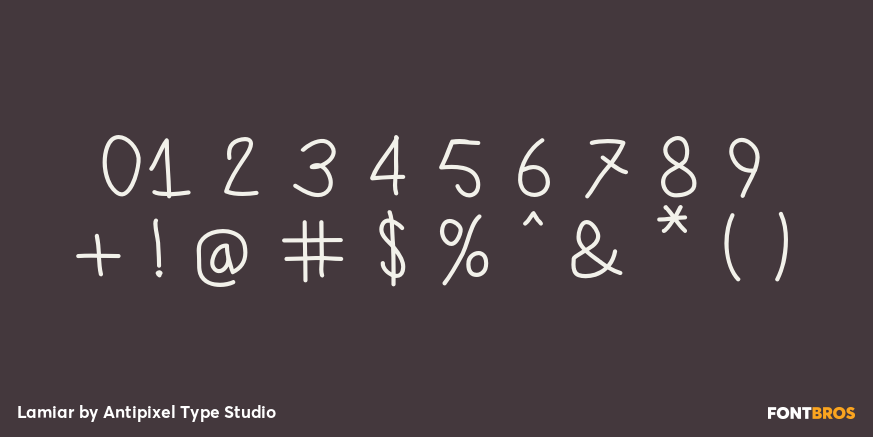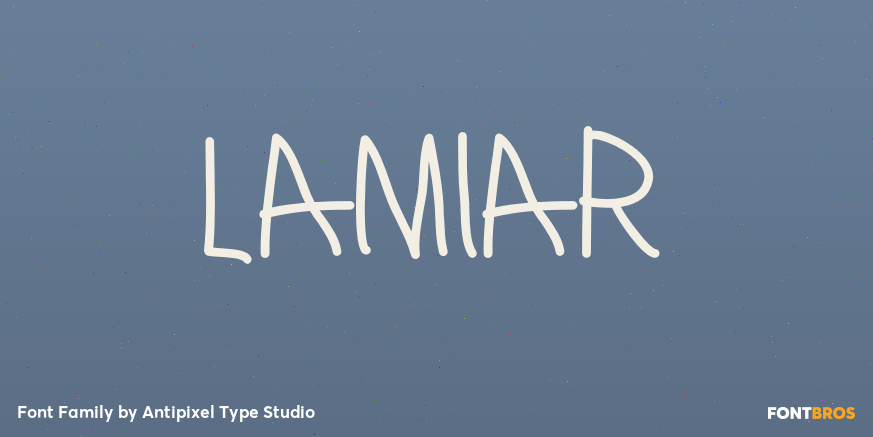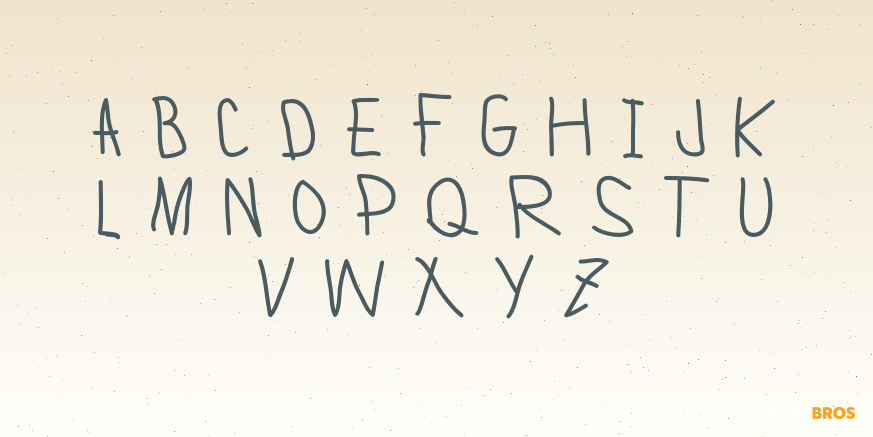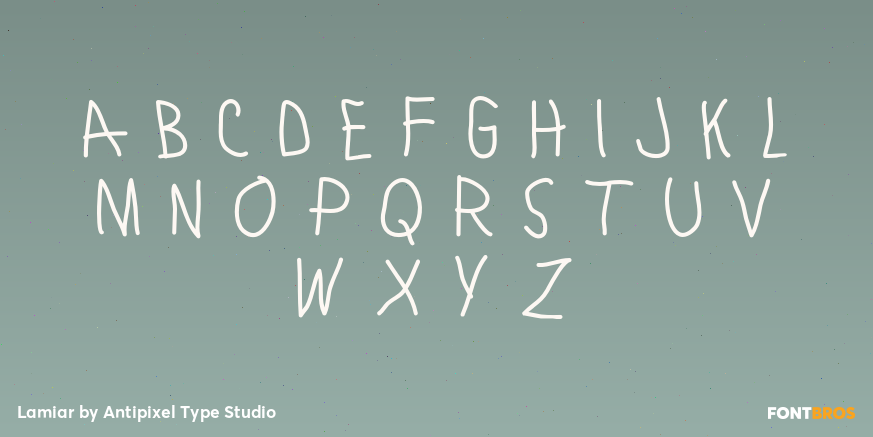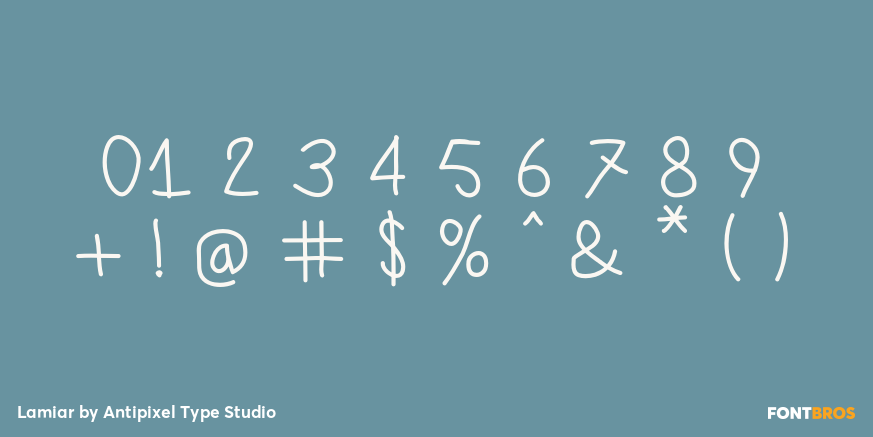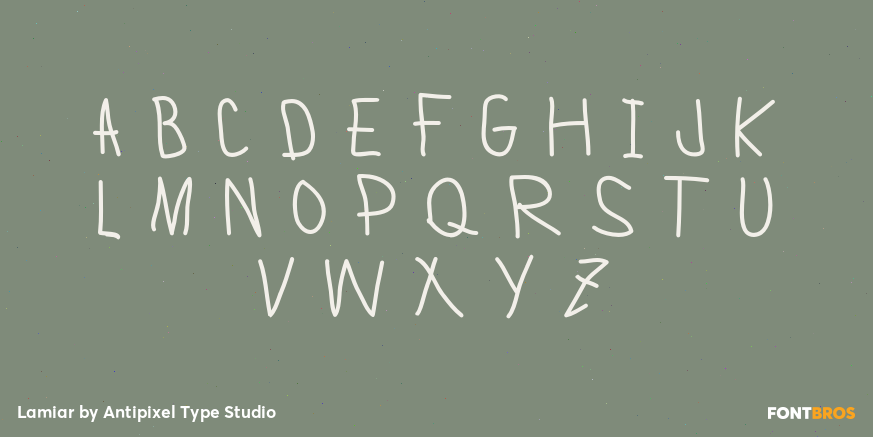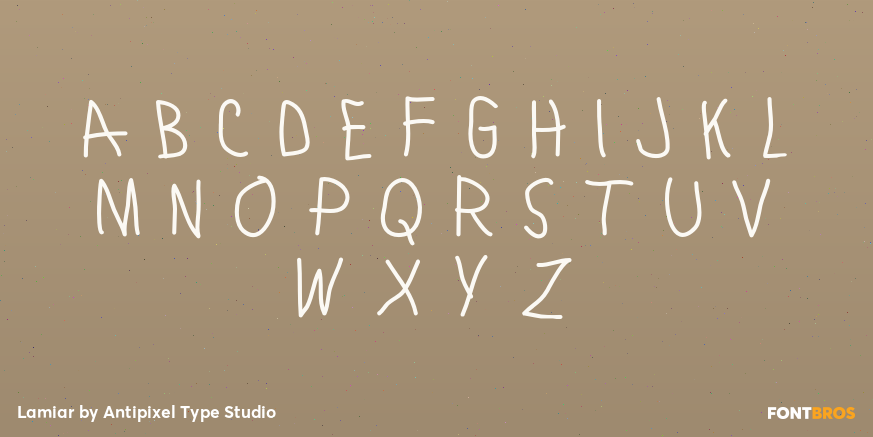
Lamiar
Font Family by Antipixel Type Studio
Lamiar is a casual script font family with a handwritten feel, giving layouts an easygoing, personal voice. Its flowing letterforms bring a warm, approachable look that feels expressive without becoming overly formal.
Offered as a 4-style family from Antipixel Type Studio, it gives you room to shift the tone from lighter and more delicate to bolder, more assertive settings. That makes it a useful choice for branding, packaging, social graphics, invitations, and other display work that benefits from a natural script style.
If you want lettering that feels relaxed, human, and clearly made to stand out, this family delivers a casual handwritten look with enough range to keep your designs consistent across different applications.